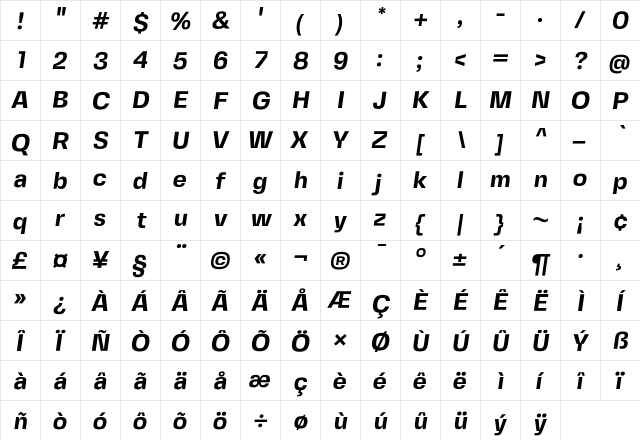
Fivo Sans Modern Italic
| Foundry | Alexander Slobzheninov |
| Designer | Alexander Slobzheninov |
Design Context for Fivo Sans Modern Typeface
Fivo Sans Modern takes a measured approach to typography — its balanced proportions and neutral character make it a reliable workhorse for both digital and print work. The slanted form adds forward momentum and visual energy.
Pro Tip: Use Fivo Sans Modern for emphasis, pull quotes, and subheadings where its slanted energy can add rhythm to the layout.